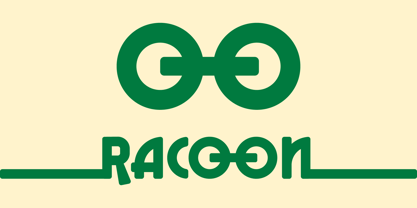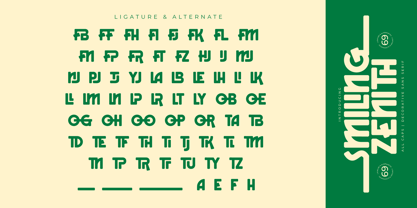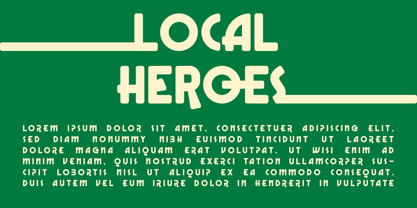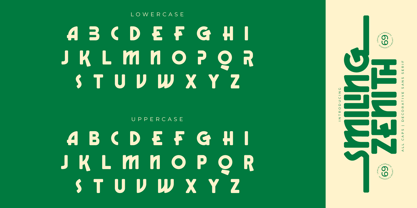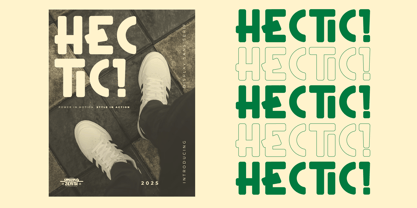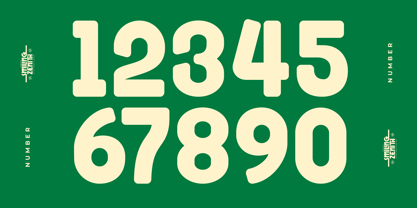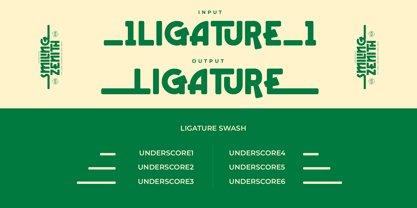
Smiling Zenith
The Smiling Zenith Font Family was designed by Risma Mulyasari and published by Risma Type. Smiling Zenith contains 1 styles.
Smiling Zenith is a delightful decorative sans serif font that infuses charm, warmth, and modern creativity into every design. Featuring smooth curves, clean strokes, and subtle decorative elements, this typeface strikes the perfect balance between simplicity and personality. It is ideal for branding, packaging, posters, children’s projects, social media graphics, and creative headlines, adding a friendly and uplifting touch to your text. Whether you're crafting playful designs or polished visual concepts, this font ensures your message stands out with its joyful and contemporary character. Let your designs radiate with the cheerful energy of Smiling Zenith.